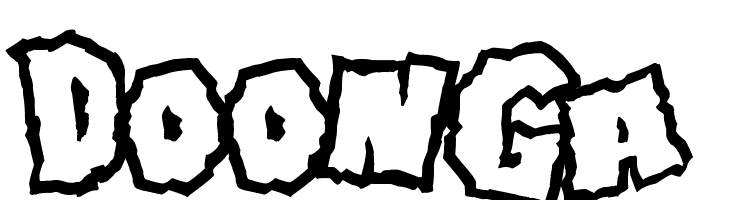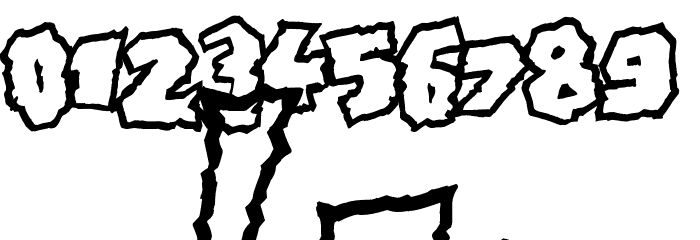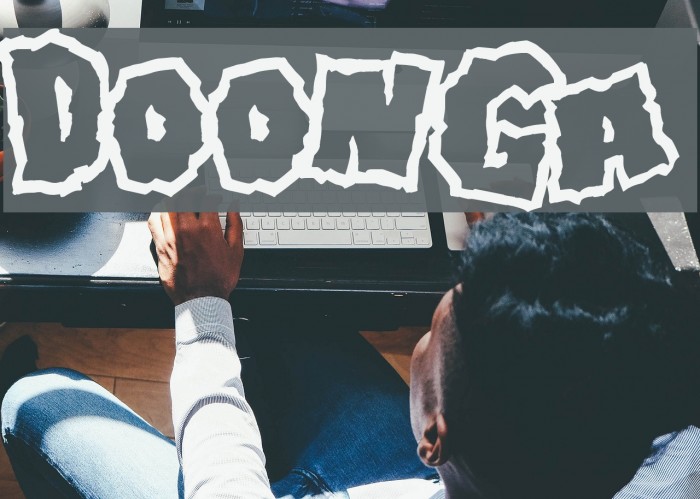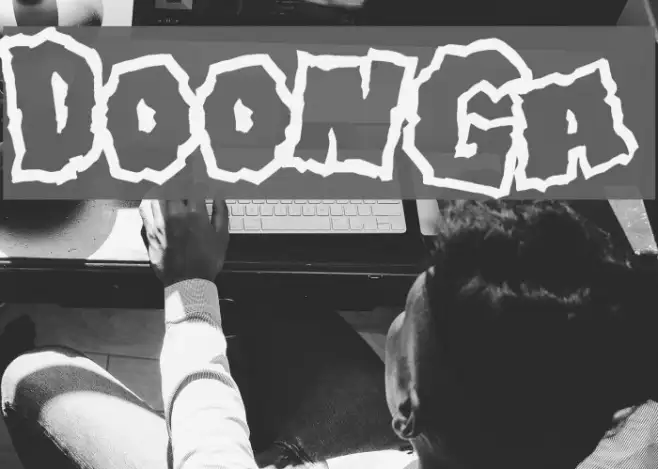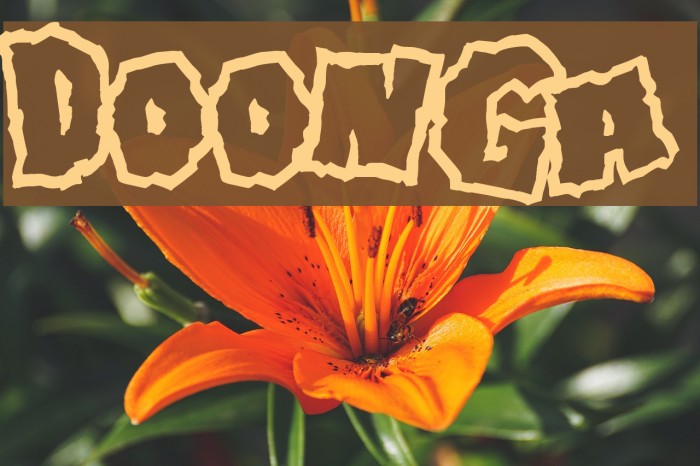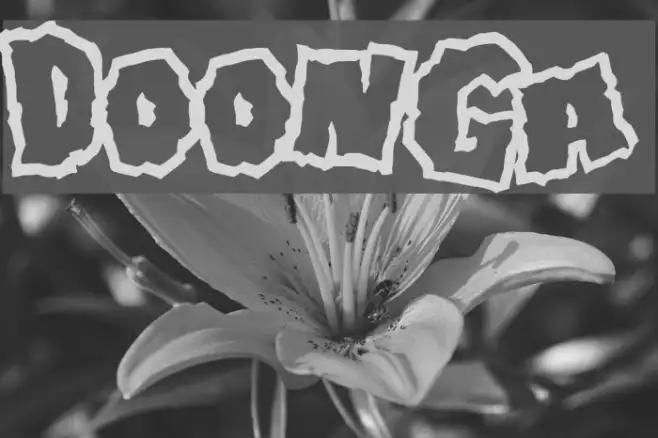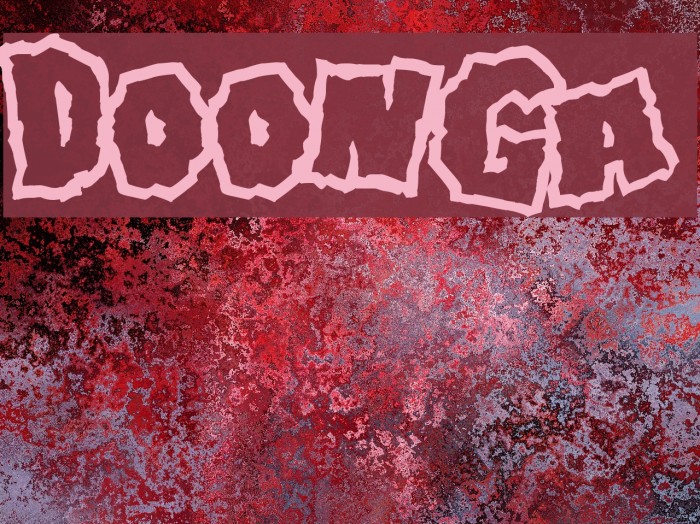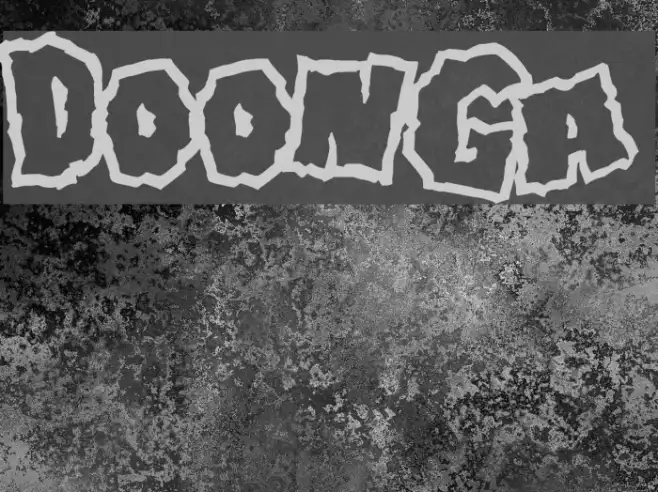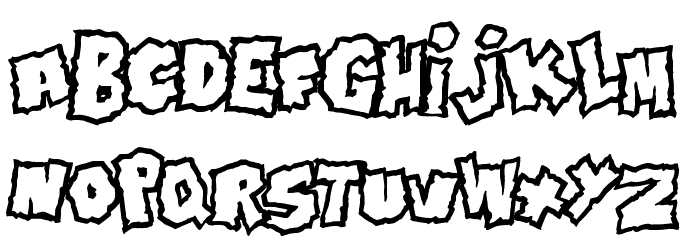
Doonga Font
This font features a bold, jagged style with a hand-drawn appearance, giving it a playful and energetic vibe. The characters are outlined with irregular edges, reminiscent of graffiti or comic book lettering. The uppercase and lowercase letters maintain a consistent thickness, contributing to a cohesive look. Numbers and special characters follow the same design principles, ensuring uniformity across the typeface. The font's unique aesthetic makes it stand out, ideal for projects that require a touch of creativity and fun.
A bold, jagged, hand-drawn font with a playful, graffiti-like style.
• Proposed Projects: Perfect for comic books, graffiti art, children's book covers, posters, and playful branding.
• Category: Decorative/Display
• Bold: Yes
• Italic: No
• Weight: Bold
• Width: Normal
• Character Spacing: Normal
• Contrast: Low
• Overall Style: Decorative
• Use Case: Headlines, Logos